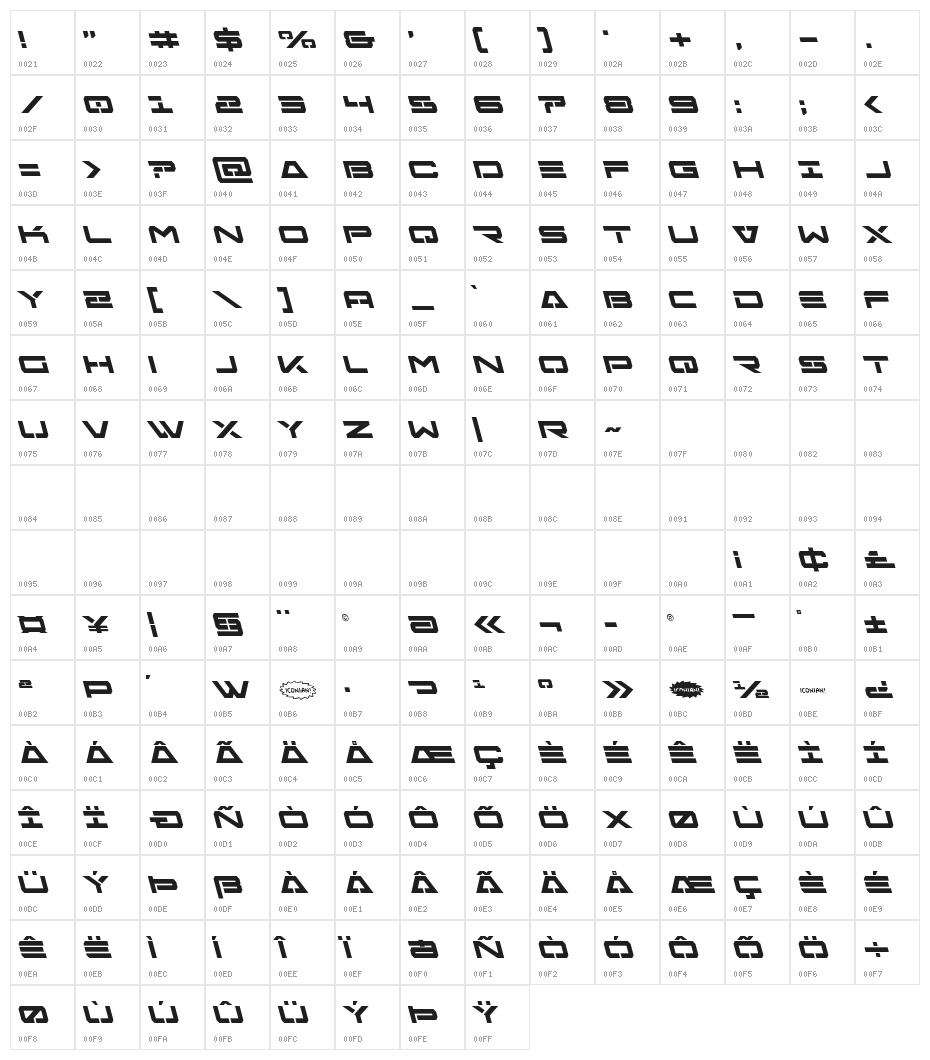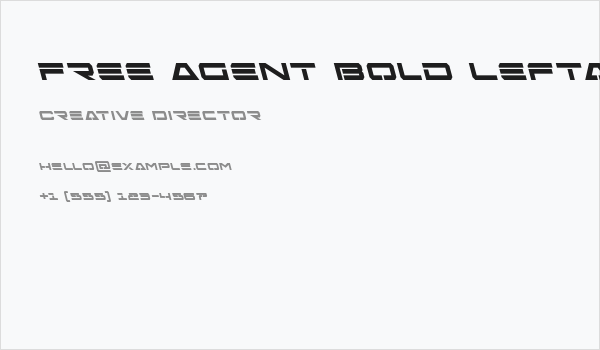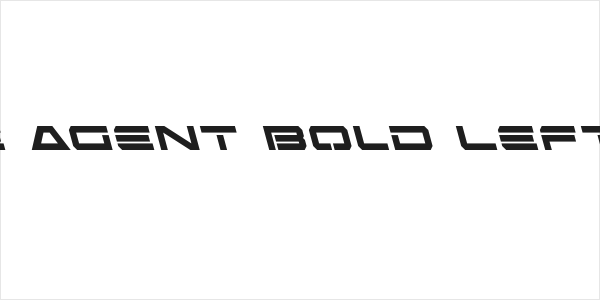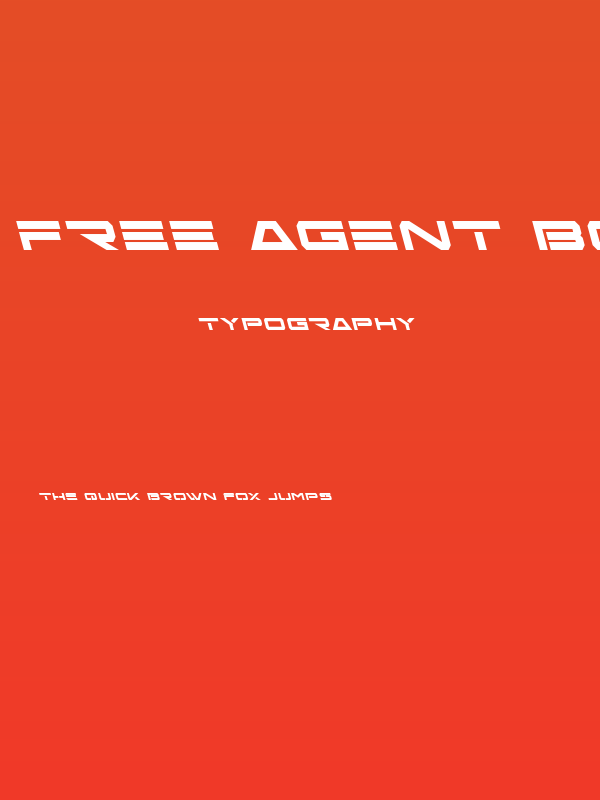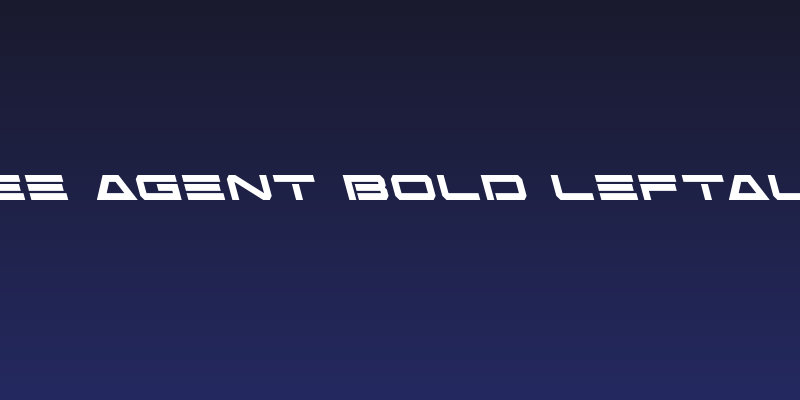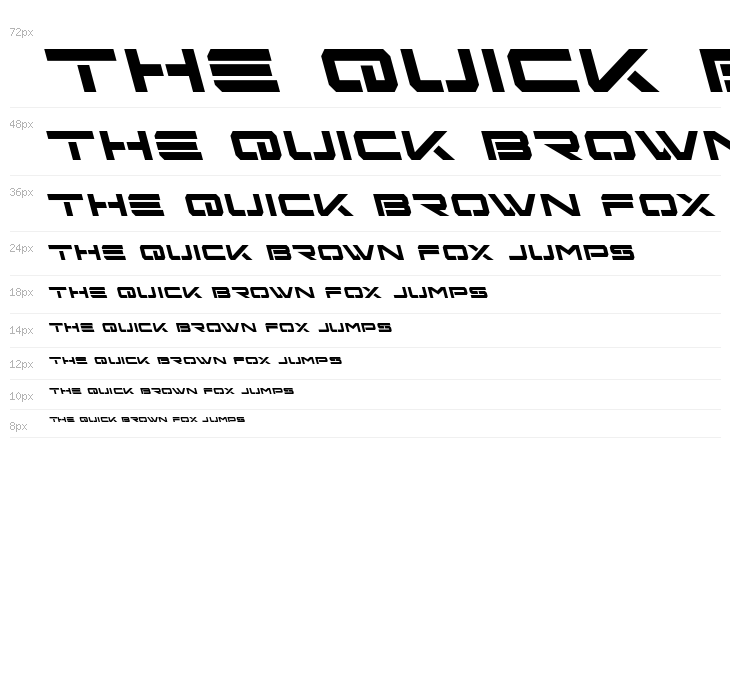
Free Agent Bold Leftalic Font
Free Agent Bold Leftalic Description
This font features a bold and futuristic design with angular and geometric elements. The characters are sharply defined with a distinct slant, giving them a dynamic and forward-moving appearance. The uppercase and lowercase letters maintain a consistent style, with unique cutouts and angles that add a sense of motion and modernity. The numerals and special characters follow the same design principles, ensuring uniformity across all glyphs. The overall aesthetic is sleek and contemporary, making it suitable for projects that require a strong, impactful visual presence.
| Proposed Projects | Ideal for sci-fi themed designs, technology branding, video game titles, and dynamic posters. |